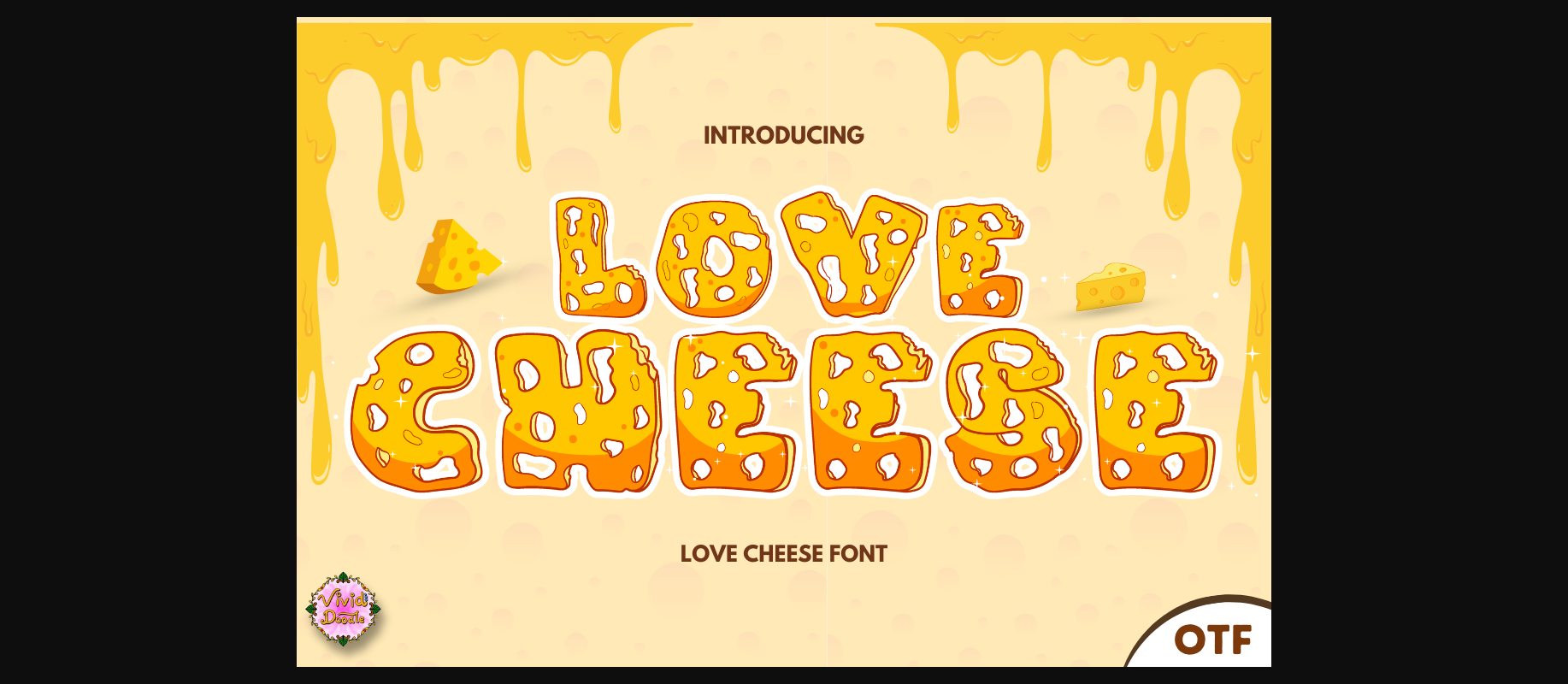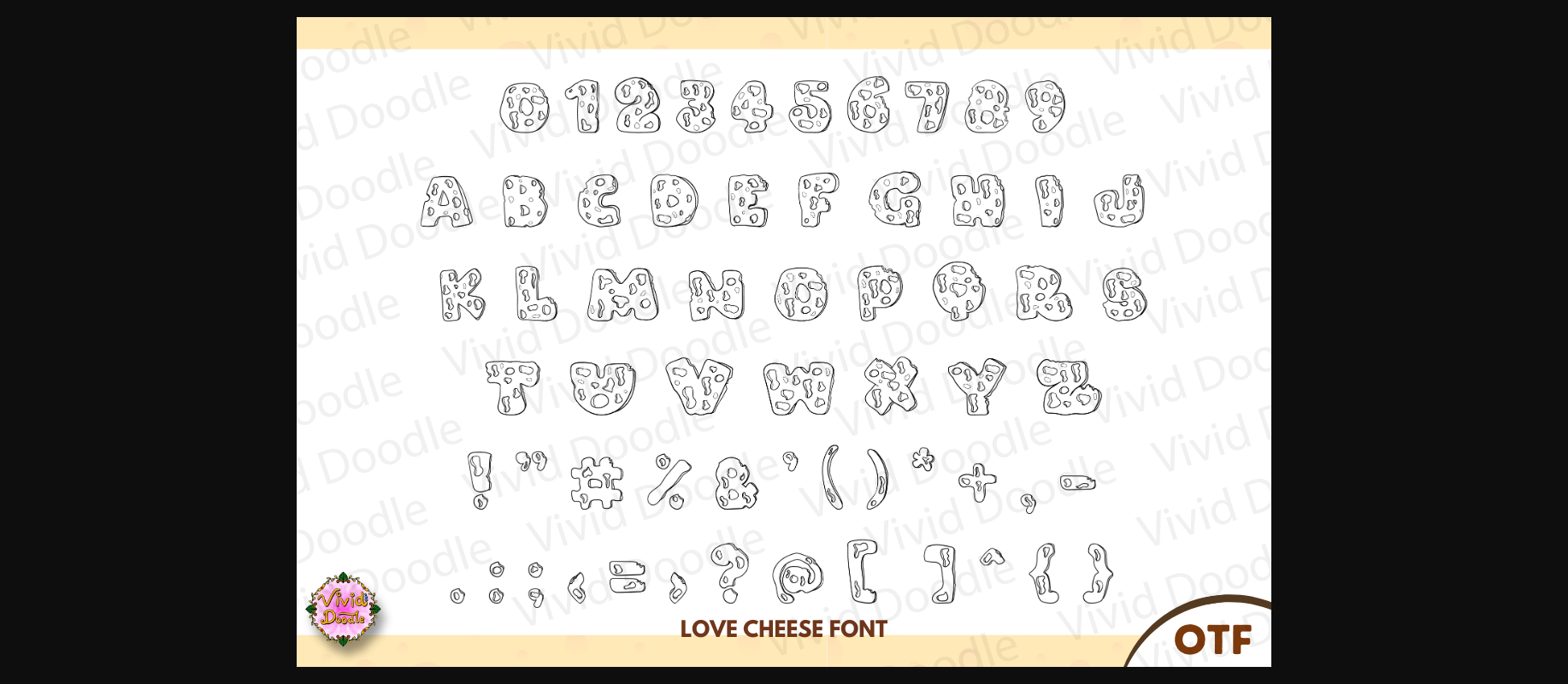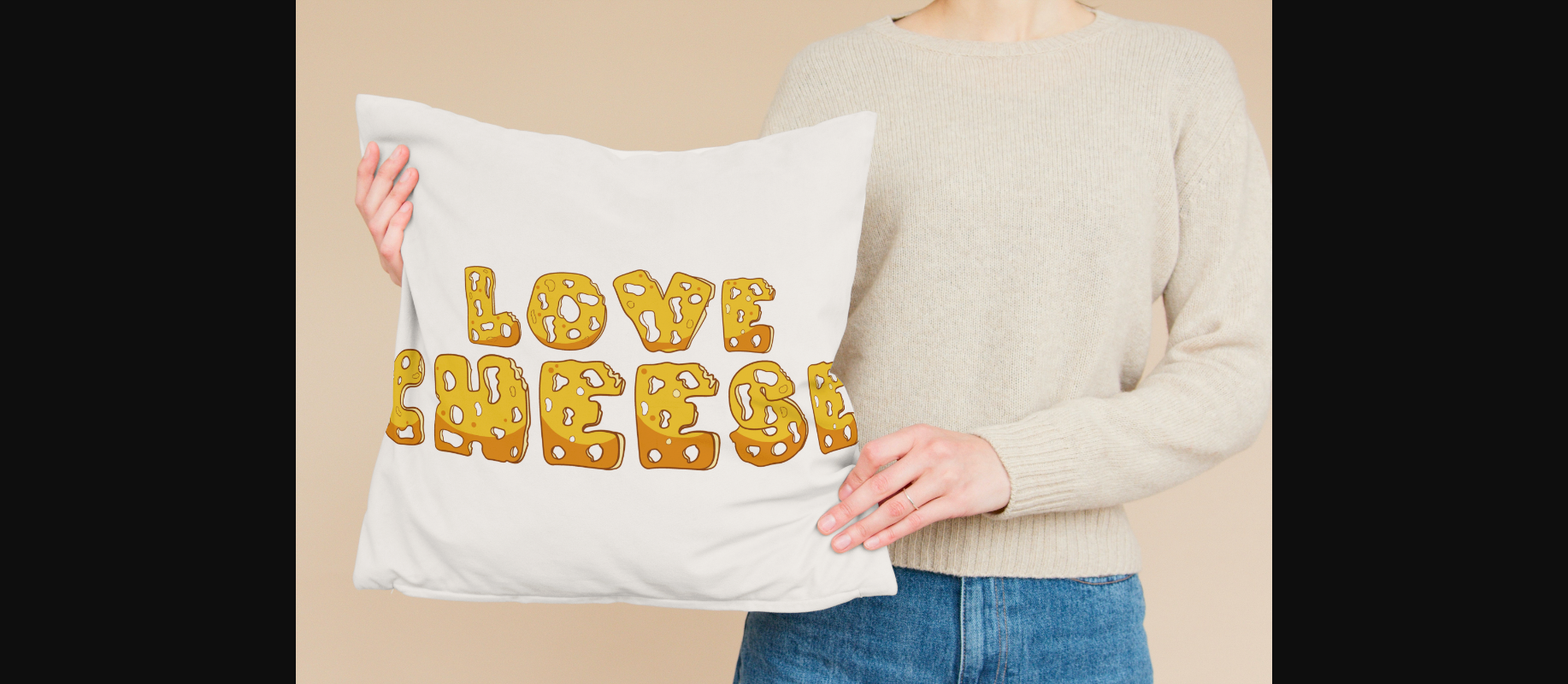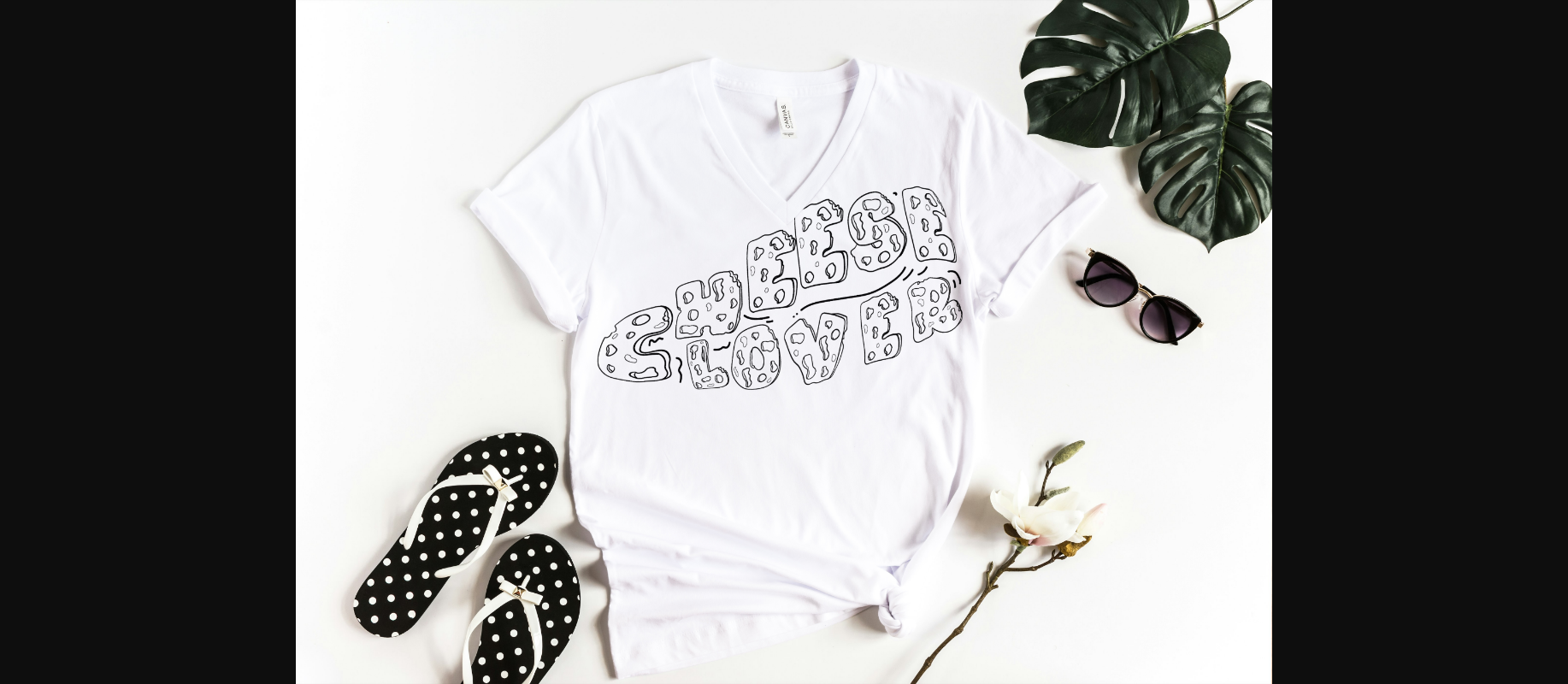
Love Cheese Font
About Love Cheese Font
Introducing Love Cheese — a delightful decorative typeface perfect for cheese lovers, food-related designs, shops, inspirational content, educational materials, holidays, and a variety of creative projects. This charming alphabet is well-suited for titles, greeting cards, lettering, banners, posters, invitations, headers, and more. Elevate your designs with the flavorful charm of this font, turning each piece into a visually engaging and creatively crafted expression.